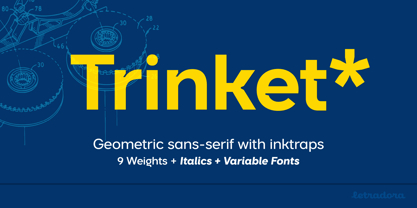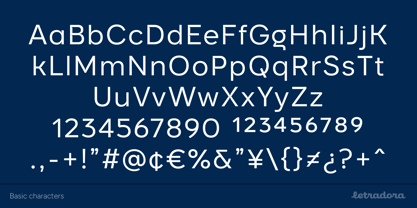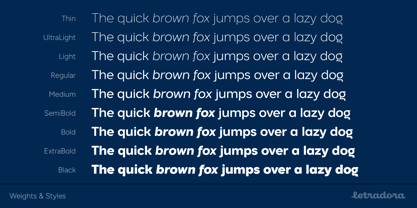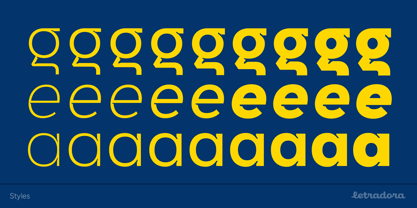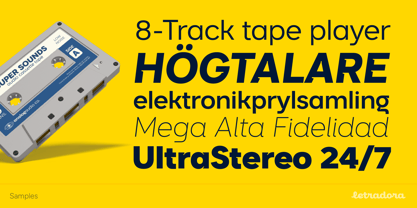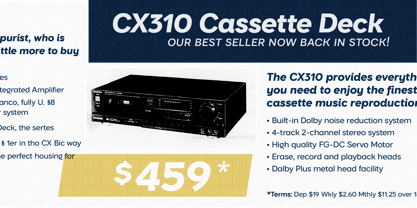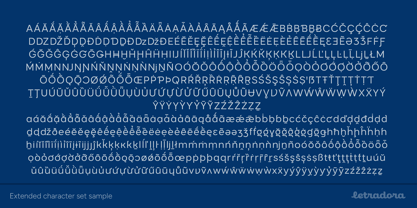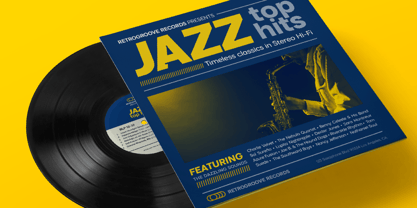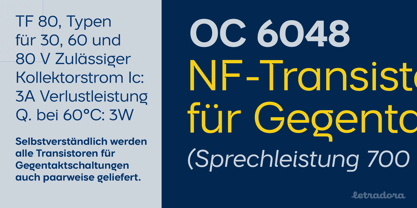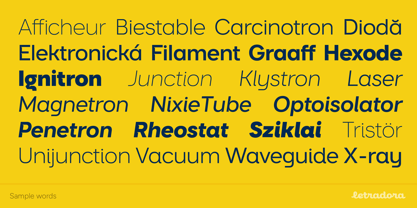
Trinket
The Trinket Font Family was designed by Kemie Guaida Ortega and published by Letradora. Trinket contains 20 styles and family package options.
Introducing Trinket: a sleek, modern typeface that masterfully combines geometric precision with contemporary style. Featuring inktraps that add a unique touch, Trinket offers 9 versatile weights in both regular and italic, allowing for effortless customization. With support for over 130 languages, this typeface is ideal for creating captivating headlines, logos, and body text across print and digital media worldwide. It includes features such as true italics, small caps, alternate characters and tabular figures. Trinket serves as a reliable workhorse with personality, making it perfect for designing logos, crafting impactful headlines, or styling engaging body text.
About Letradora
Kemie loves type and has been drawing letterforms and making fonts since 1998. She distributes her typefaces, mostly display and handwritten, under the Letradora foundry (formerly Pixilate). She believes no font is too simple to be well crafted and all letters deserve to be beautiful. She can be found at letradora.com or at Instagram at @letradora_fonts.